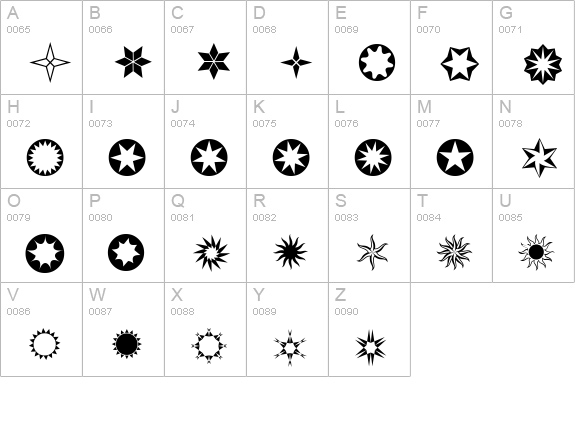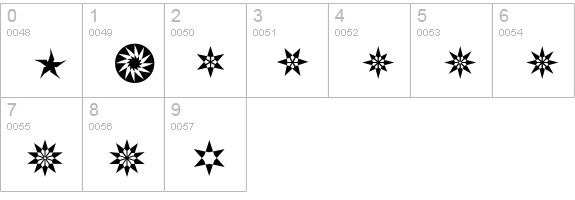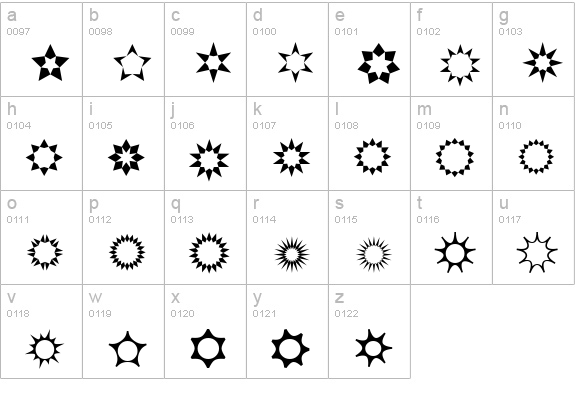
XStarPieces Font Details
Introducing the captivating XStarPieces font, a versatile typeface that exudes elegance and charm. With its intricate design and stylish flair, XStarPieces brings a touch of sophistication to any project. This unique font is perfect for adding a touch of glamour to your designs, whether you're working on invitations, logos, posters, or more. The best part? XStarPieces is available for free download at FontsMarket.com. This means you can easily access this stunning font and elevate your creations without breaking the bank. Don't miss out on the opportunity to enhance your designs with the exquisite XStarPieces font - download it today and let your creativity shine!